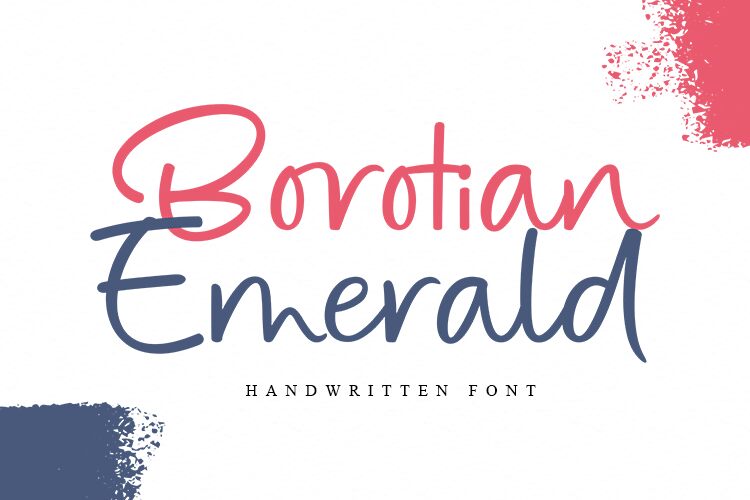
Borotian Emerald is a light, casual handwritten font designed by Zain Fahroni. It's perfect for adding a personal touch to any project, from scrapbooking to logo design. Its unique style makes it perfect for crafting creative cards, invitations and stationery designs.